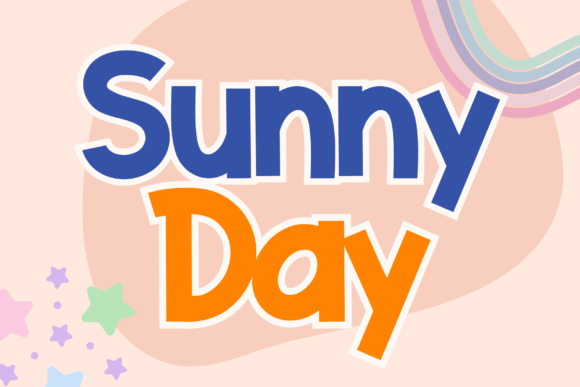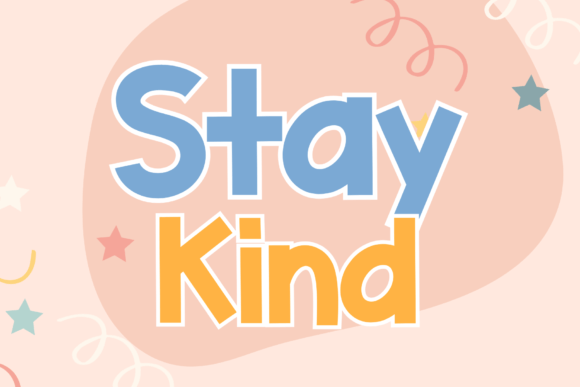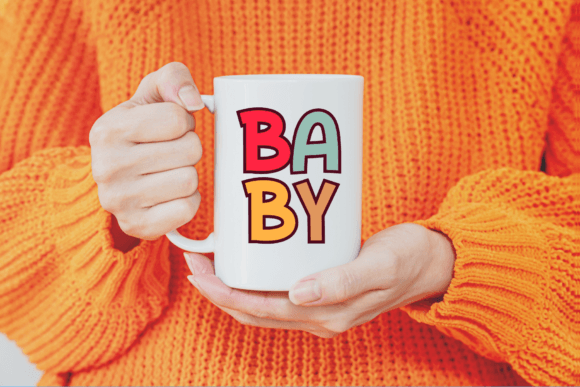
Introduction to Reuben Font
Have you ever stumbled upon the perfect font while browsing through a design resource, only to find it elevating your entire creative project? For many designers, this moment of serendipity is a game-changer. And for those who have discovered the Reuben Font, we’re sure you’ll agree that it’s a high-quality addition to any design.
With its playful and authentic vibe, the Reuben Font is the perfect choice for a wide range of applications, from logos and branding to blog posts and greeting cards. Its versatility is one of its greatest strengths, making it an invaluable resource for designers looking to add a touch of personality to their work. And the best part? The Reuben Font is available for free download, complete with a transparent background, making it easy to integrate into any design project.
- Designed with a unique, modern aesthetic, making it suitable for a variety of creative projects, from logos to typography-based art.
Honest Review: Reuben Font
As a designer, I’m always on the lookout for high-quality design resources to elevate my creative projects. Recently, I had the chance to work with the Reuben Font, and I’m excited to share my honest review.
What works well: ✨ The Reuben Font is a beautiful, modern sans-serif font that’s perfect for a variety of design applications. Its clean lines and simple design make it easy to read, and the transparent background option is a nice touch.
- High-quality design: The Reuben Font is well-designed and looks great on both digital and print materials.
Limitations: ⚠️ While the Reuben Font is a great addition to any design toolkit, I did find that it’s not as extensive as some other font families I’ve worked with. It’s still a great choice for most design projects, but you may want to supplement it with other fonts for more complex designs.
Overall, I’m impressed with the Reuben Font and would definitely recommend it to fellow designers. It’s a great free download that’s perfect for a variety of creative projects.
For the best results, use Reuben Font with a transparent background to add depth and creativity to your design. Experiment with different font sizes and colors to create a unique look.
Reuben Font is perfect for creative projects, such as logos, posters, and social media graphics. It’s also great for presentations, documents, and other business materials where a touch of elegance is desired.